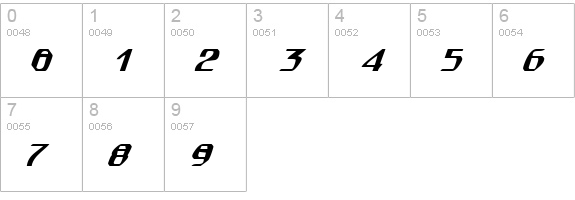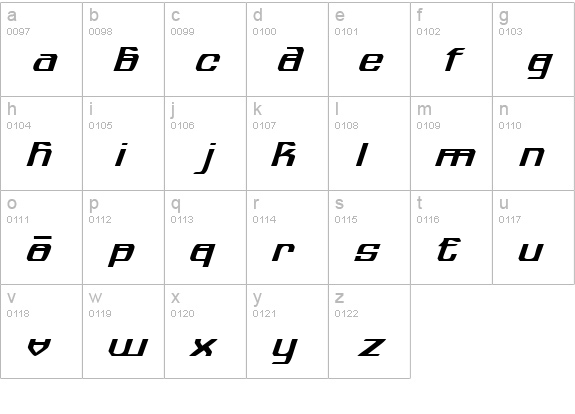
spuknik Font Details
Introducing the captivating and versatile Spuknik font, a creative typeface that combines elegance with a touch of playfulness. This font is the perfect choice for designers and creatives seeking to add a unique and eye-catching element to their projects. With its distinctively modern and sleek design, Spuknik effortlessly captures attention and creates a lasting impression. Whether used for headlines, logos, branding materials, or any other design application, this font exudes a sense of sophistication and creativity. But what sets the Spuknik font apart is not just its striking aesthetics; it is also the fact that it is freely available to download at FontsMarket.com. Yes, you read that right! You can now enjoy the beauty and versatility of Spuknik without any restrictions or limitations. This makes it an ideal choice for both personal and commercial projects. The Spuknik font comes in various weights, ensuring that you have the flexibility to experiment and find the perfect fit for your design needs. Its clean lines and balanced proportions make it highly readable and adaptable to different design styles. Whether you are working on a website, a magazine layout, a poster, or any other creative endeavor, Spuknik is the font that will elevate your designs to new heights. Its timeless appeal and modern edge make it a go-to choice for designers worldwide. So, why wait? Embrace the power of Spuknik font and unleash your creativity. Download this captivating typeface for free at FontsMarket.com and let your designs shine with elegance and style.